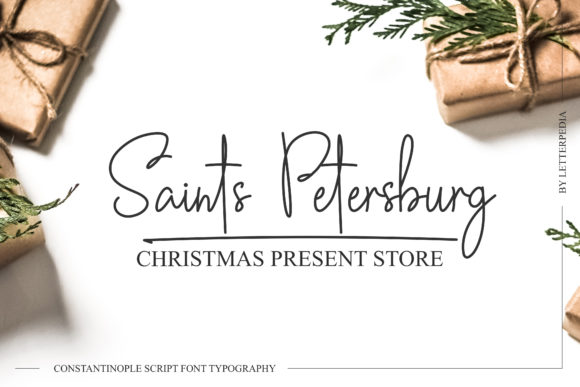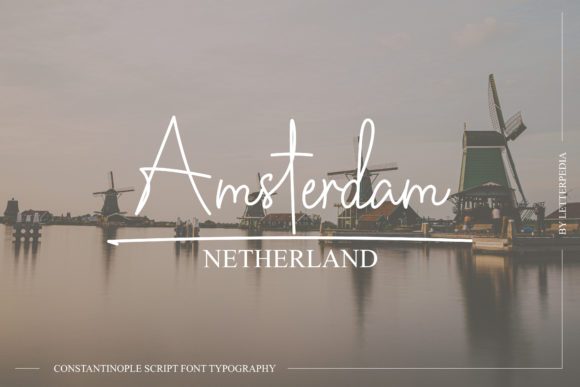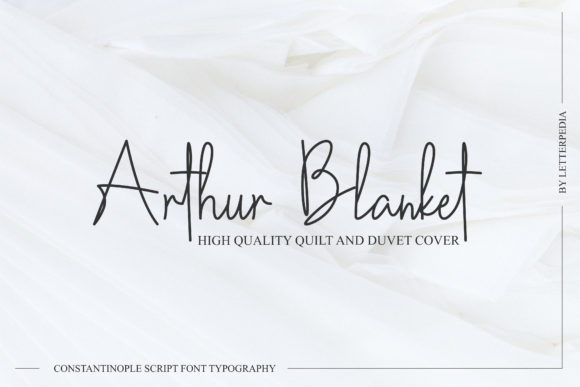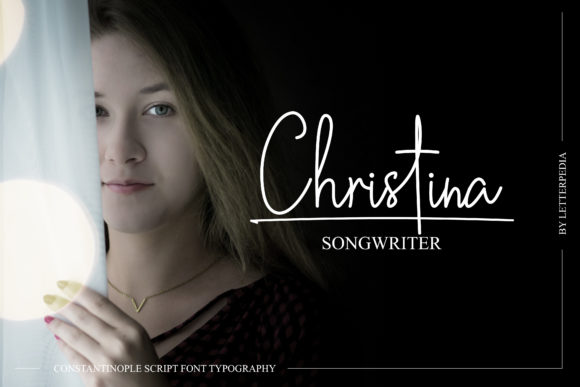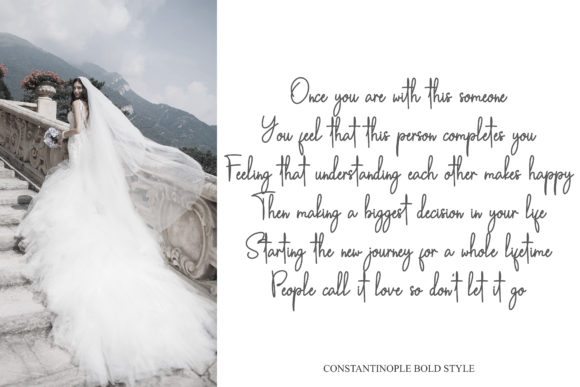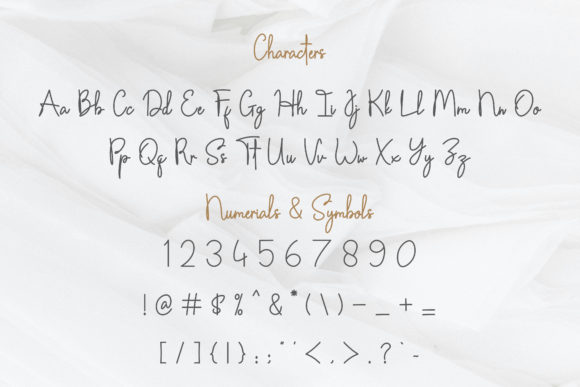
Introducing Constantinople Font: Elevate Your Designs with Elegance
Are you a designer or crafter looking for a font that exudes elegance and sophistication? Look no further than the Constantinople Font. This stunning script font is a versatile and beautiful addition to any design project, offering multiple styles to suit a wide range of applications.
What is Constantinople Font?
Constantinople is a thin lettered script font that boasts a delicate and refined aesthetic. Its slender lines and curves create a sense of luxury and refinement, making it perfect for designs that require a touch of elegance. Whether you’re working on a stationery set, fashion branding, wedding invitation, or signature, Constantinople Font is sure to impress.
Key Features of Constantinople Font
- Multiple Styles: Constantinople Font offers a range of styles to suit different design needs, from formal and traditional to modern and playful.
- Thin Lettered: The font’s thin lettering creates a light and airy feel, perfect for designs that require a sense of delicacy and sophistication.
- Script Font: As a script font, Constantinople features flowing connections between letters, adding a touch of elegance and refinement to any design.
- Versatile: From stationery and fashion branding to wedding invitations and signatures, Constantinople Font is suitable for a wide range of applications.
Uses for Constantinople Font
With its elegant and refined aesthetic, Constantinople Font is perfect for a variety of design projects, including:
- Stationery: Create beautiful letterheads, business cards, and envelopes that exude professionalism and sophistication.
- Fashion Branding: Elevate your fashion brand with elegant packaging, labels, and advertisements that showcase the Constantinople Font.
- Wedding Invitations: Make your wedding invitation stand out with the Constantinople Font, adding a touch of romance and luxury to your special day.
- Signatures: Add a personal touch to your digital or handwritten signatures with the elegant and refined Constantinople Font.
Benefits of Using Constantinople Font
By incorporating the Constantinople Font into your design projects, you’ll enjoy a range of benefits, including:
- Elegance and Sophistication: The Constantinople Font adds a touch of luxury and refinement to any design, making it perfect for high-end brands and special occasions.
- Versatility: With multiple styles to choose from, you can adapt the Constantinople Font to suit different design needs and applications.
- Easy to Read: Despite its thin lettering, the Constantinople Font remains clear and easy to read, making it perfect for body text and headlines.
Tips for Using Constantinople Font
To get the most out of the Constantinople Font, follow these expert tips:
- Pair with Bold Fonts: Combine the Constantinople Font with bold fonts to create striking contrast and visual interest.
- Experiment with Colors: Try pairing the Constantinople Font with different colors and textures to add depth and dimension to your designs.
- Use for Headlines and Titles: The Constantinople Font is perfect for headlines and titles, adding a touch of elegance and sophistication to your designs.
In conclusion, the Constantinople Font is a stunning script font that offers elegance, sophistication, and versatility. With its multiple styles, thin lettering, and flowing connections, it’s perfect for a wide range of design applications, from stationery and fashion branding to wedding invitations and signatures. By incorporating the Constantinople Font into your design projects, you’ll add a touch of luxury and refinement that will leave a lasting impression.